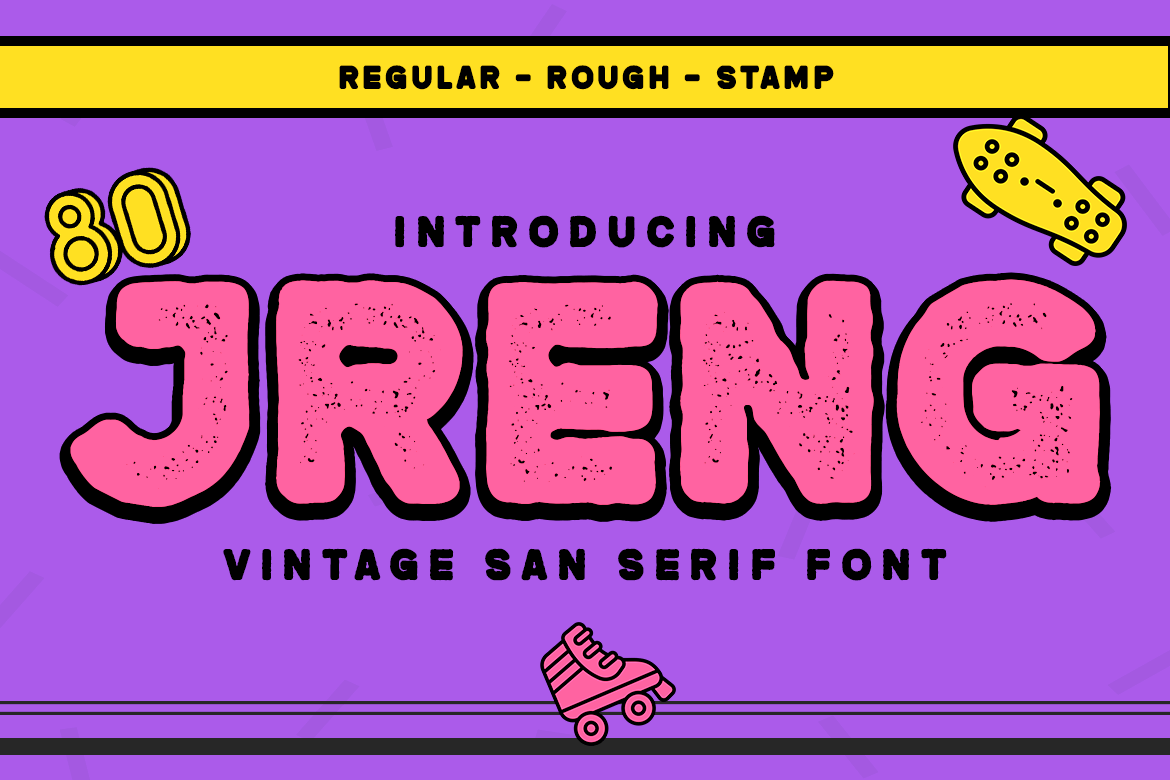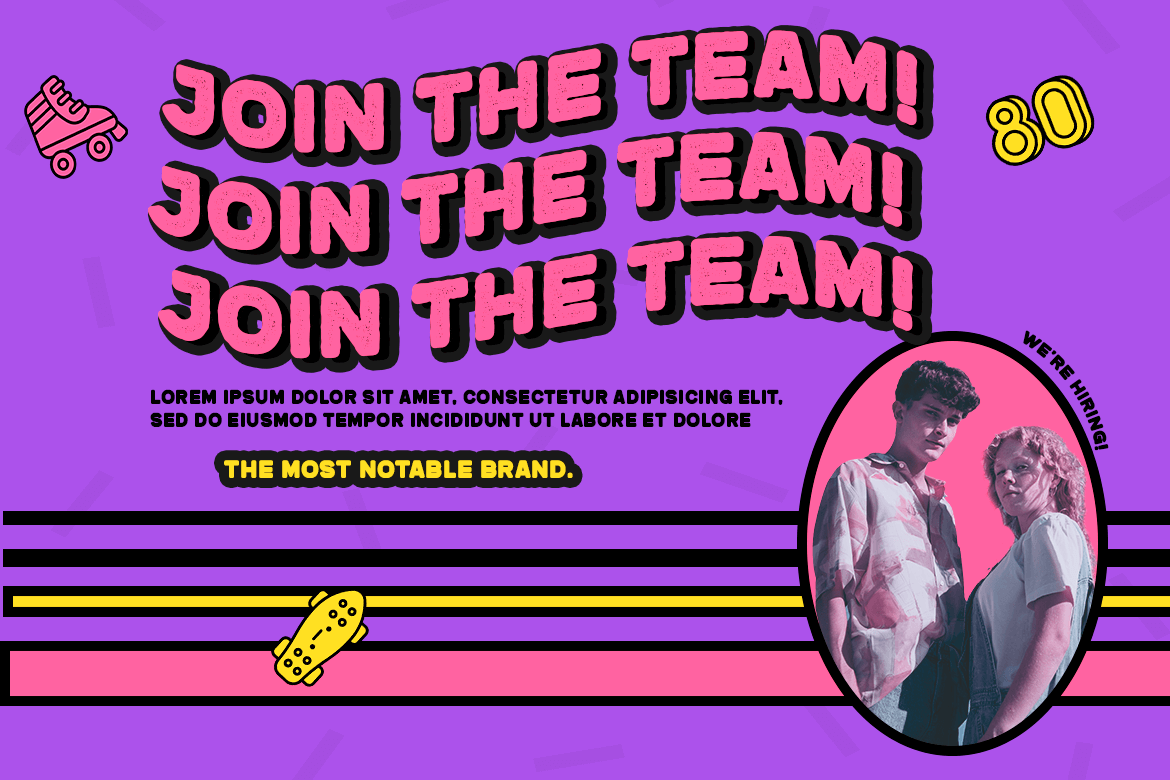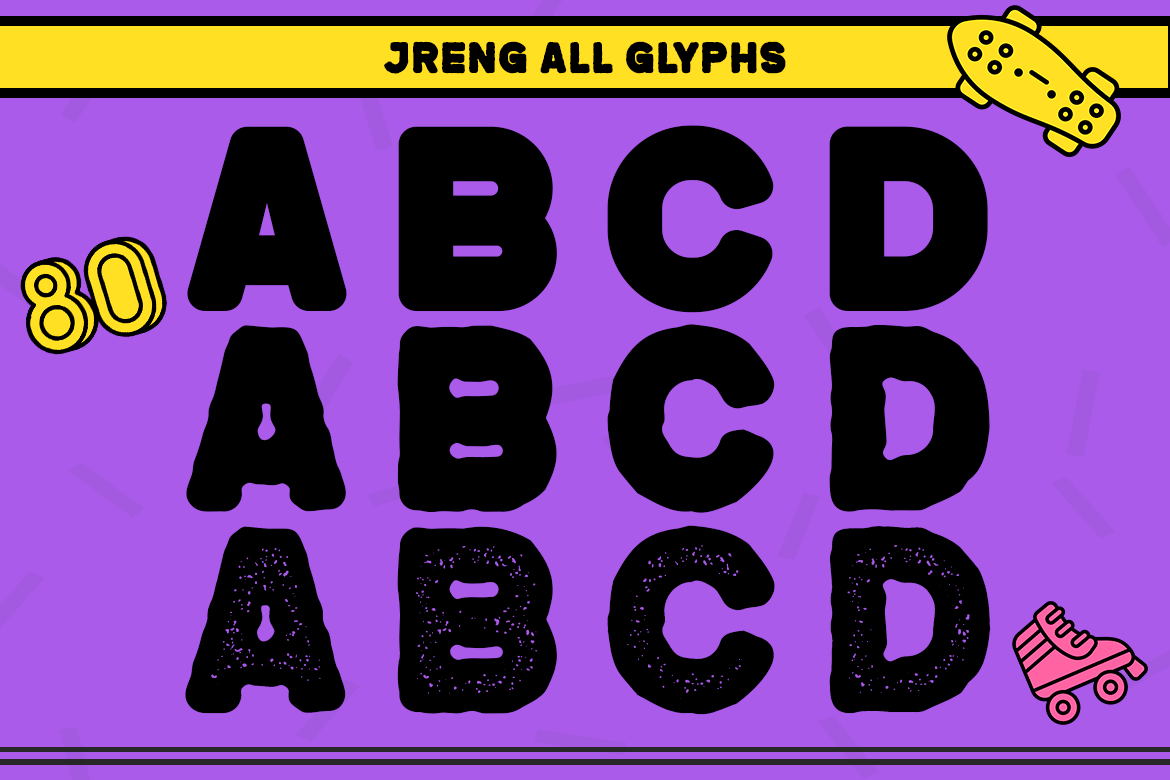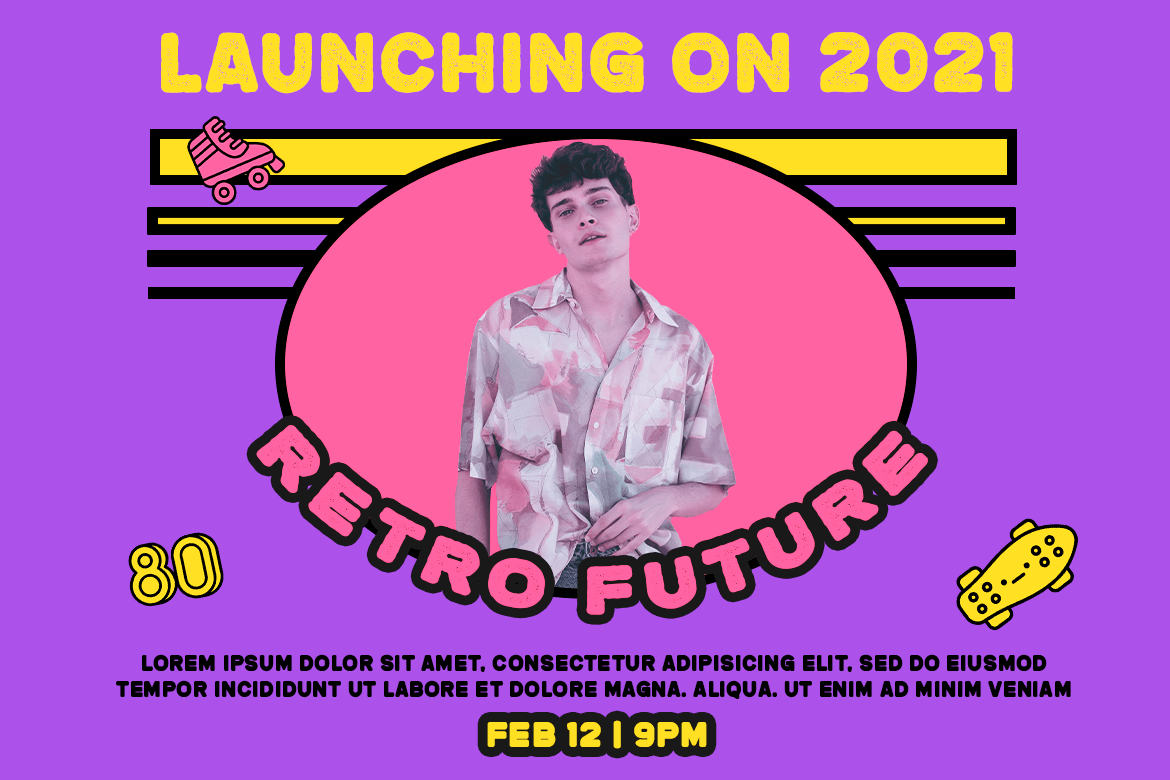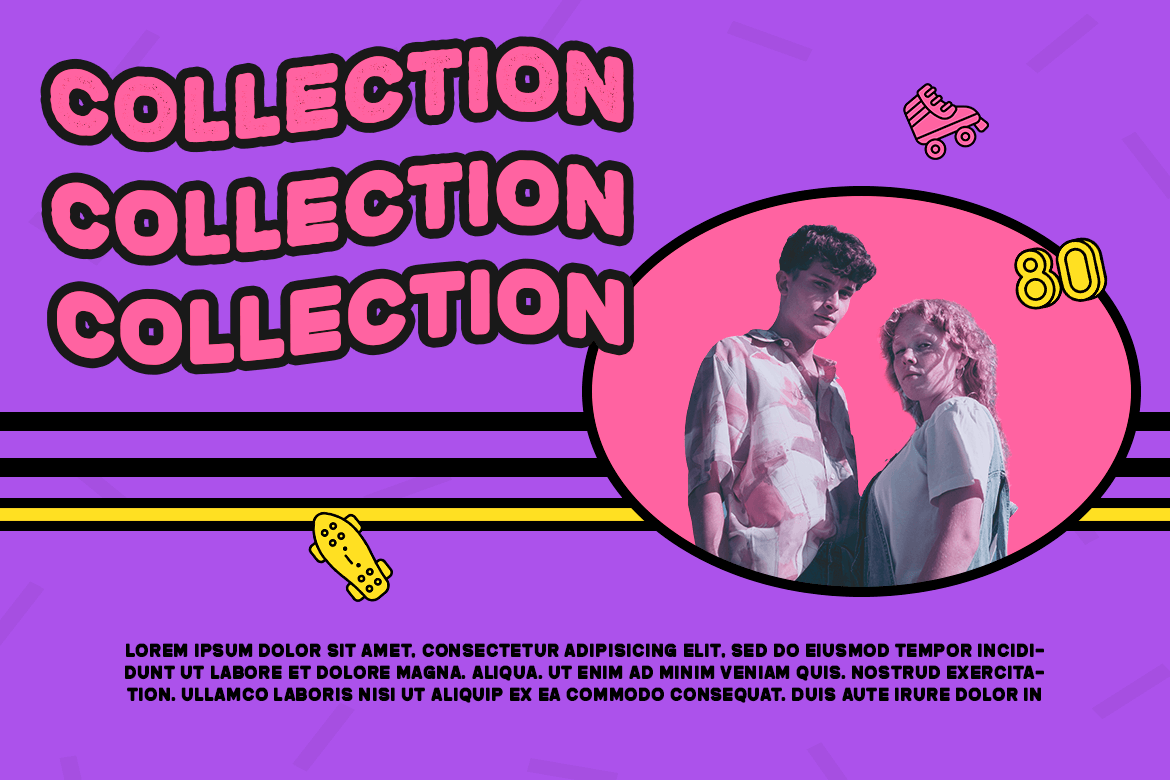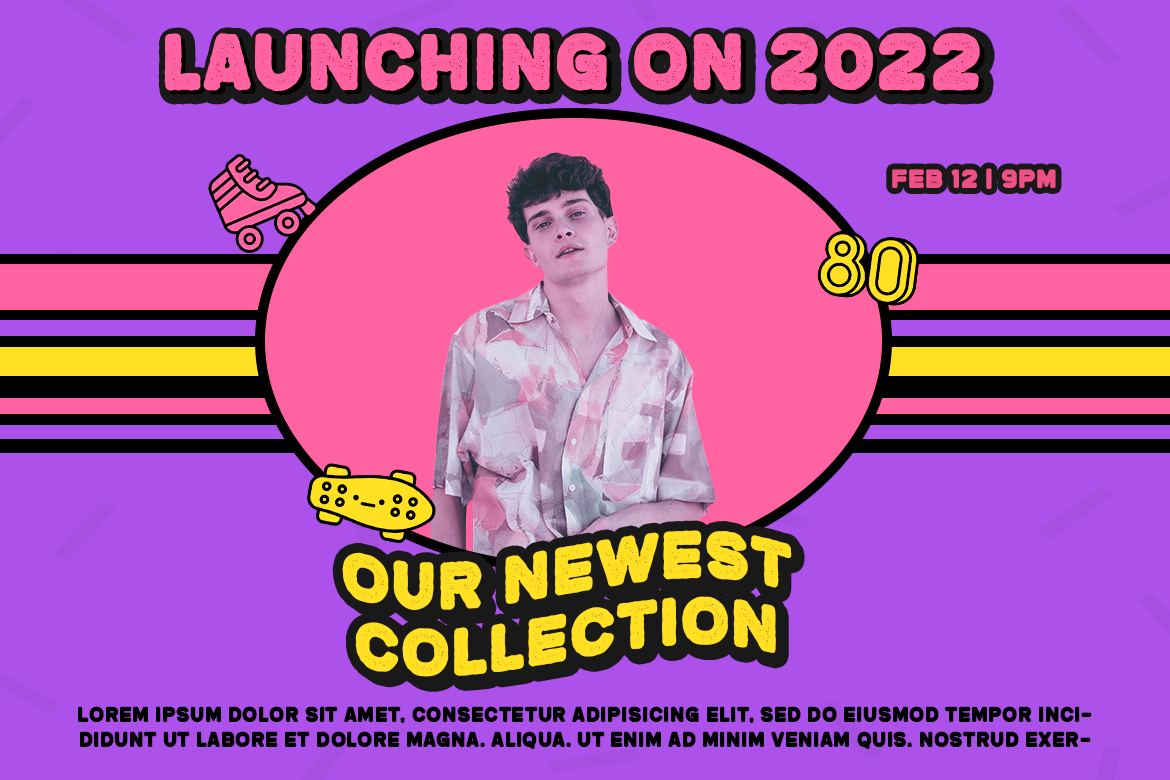
Jreng
Jreng is a casual retro from the san serif font family that carries a modern classic theme with a variety of letter combinations that are designed to pay attention to the shape of the letter so that it is precise and harmonious in its use, this font forms a vintage style with a smooth, rough touch and a stamp.
with this font, you can beautify your work and also strengthen your work in the form of promotional media, banners, posters, logos, typography, hand lettering, packaging, t-shirts, labels, and much more.